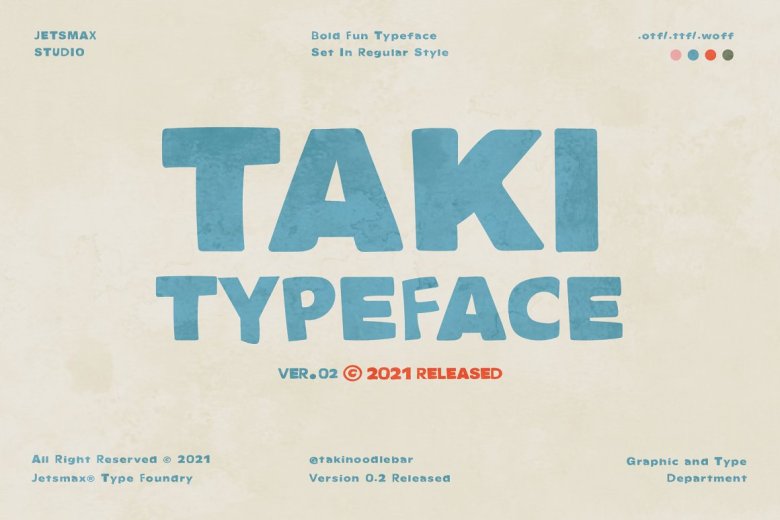
TAKI Font
TAKI is a quirky display typeface, embodying boldness and uniqueness in every curve. The authenticity of this font will turn any creative ideas into something standout!
TAKI Font is suitable for variety of branding projects, logos, parties and events, social media posts, advertisements, and so much more. Be Bold with TAKI!